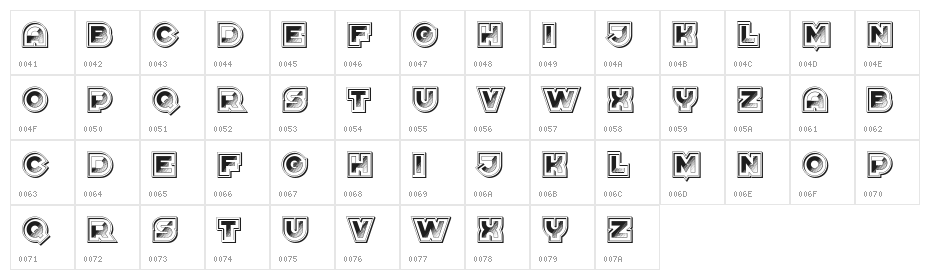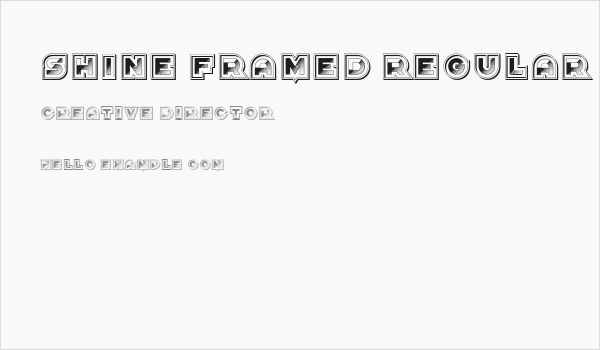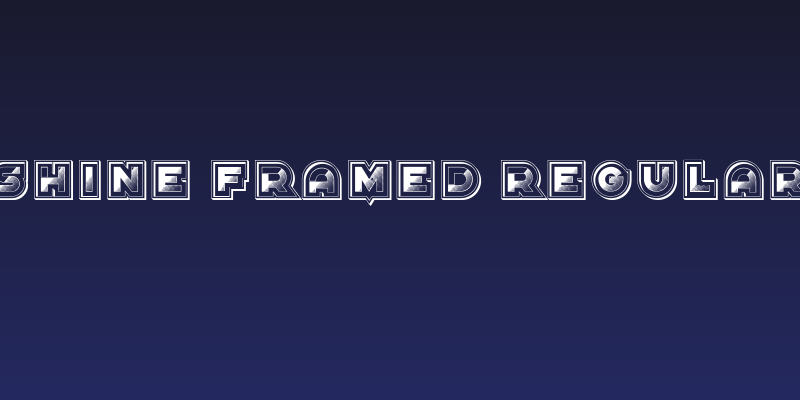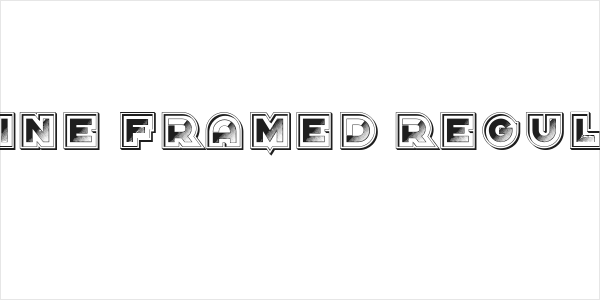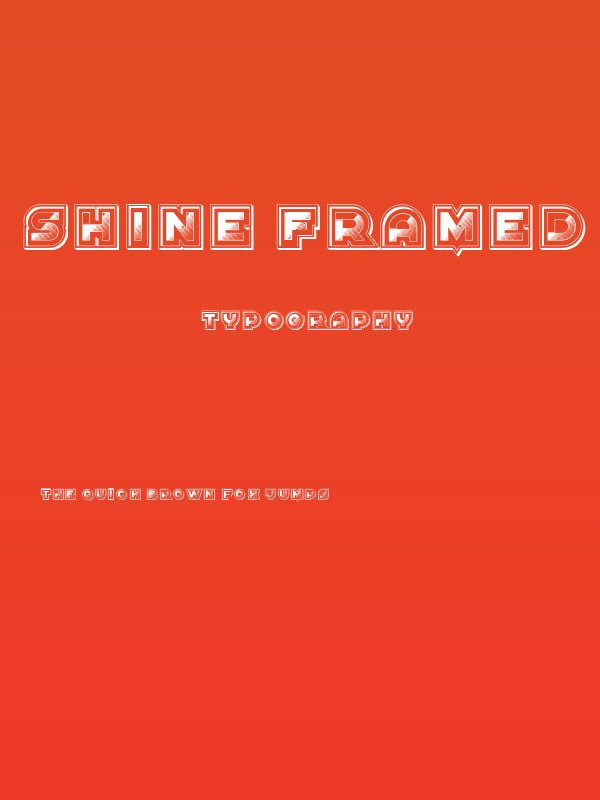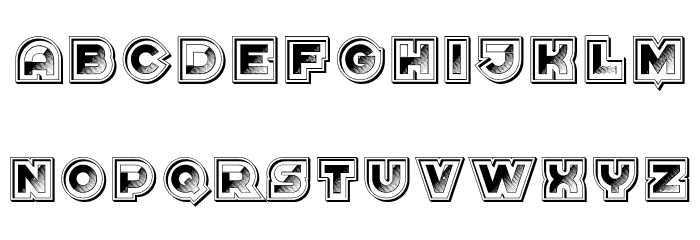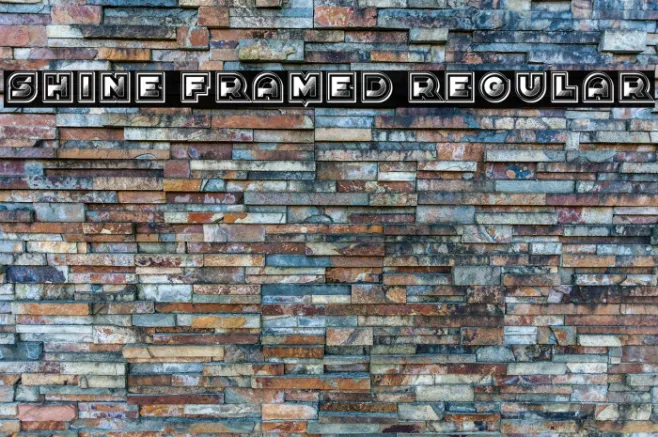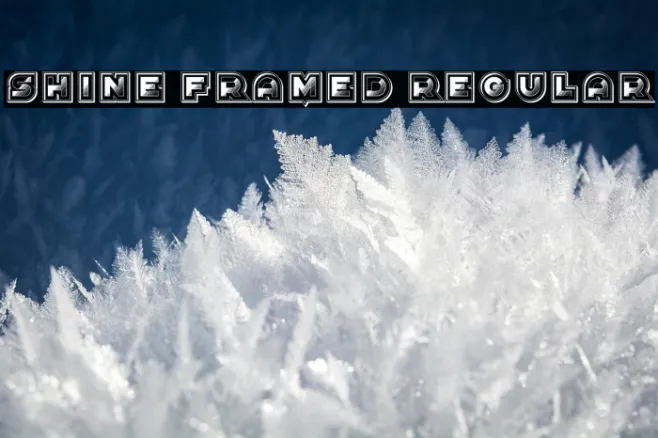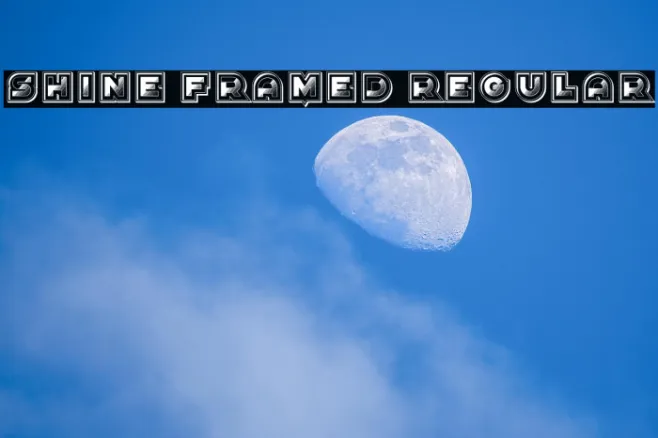
Shine Framed Regular Font
Shine Framed Regular Description
This font features a bold and decorative style with a unique three-dimensional effect. Each character is framed with a double outline, creating a sense of depth and shadow. The inner part of the letters includes intricate patterns and textures, adding a layer of complexity and visual interest. The overall design is eye-catching and suitable for making a strong visual impact. The uppercase letters are consistent in height and width, providing a balanced and uniform appearance. The font's playful yet structured design makes it versatile for various creative applications.
| Proposed Projects | Ideal for posters, logos, headlines, and any design requiring a striking visual element. |